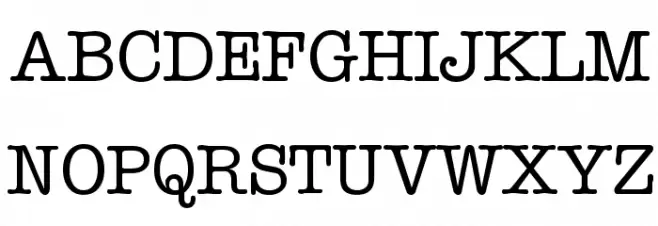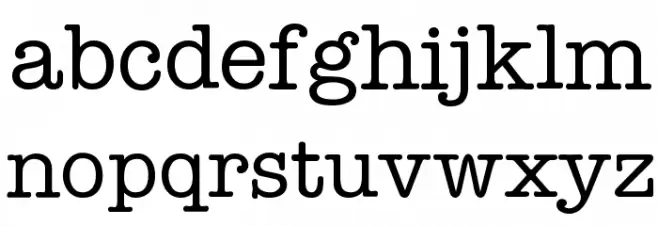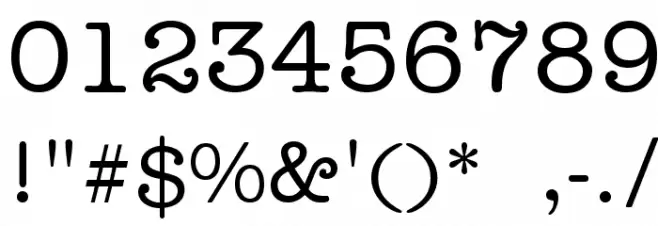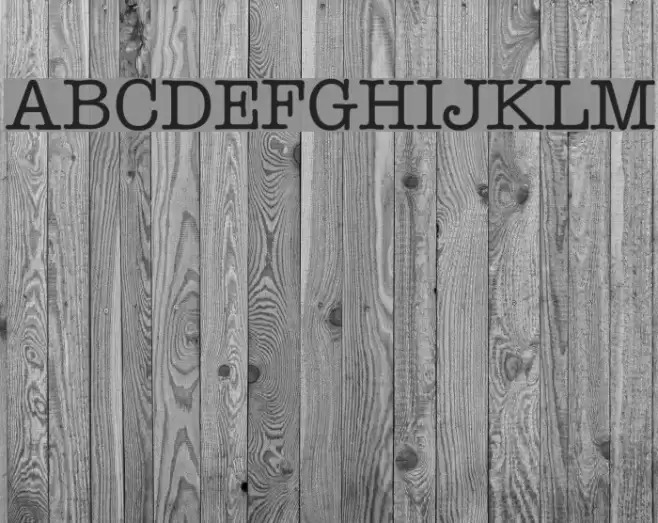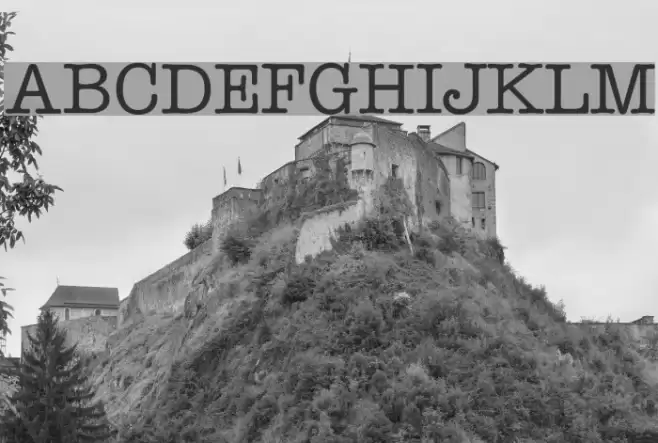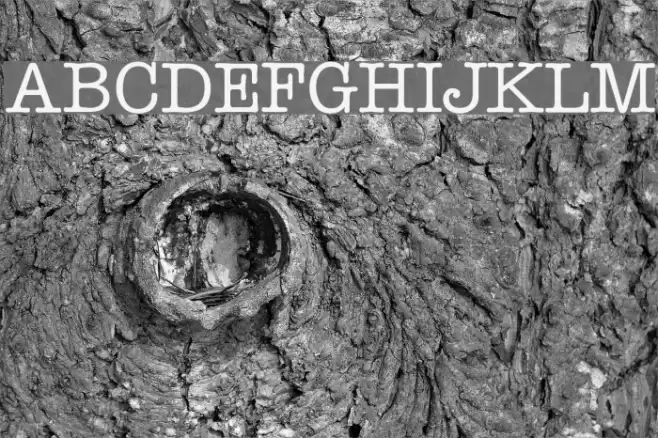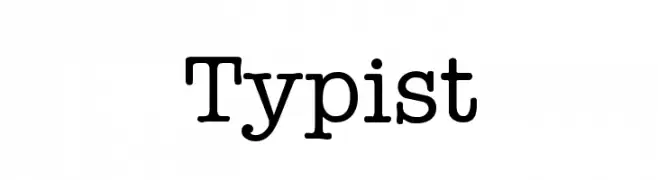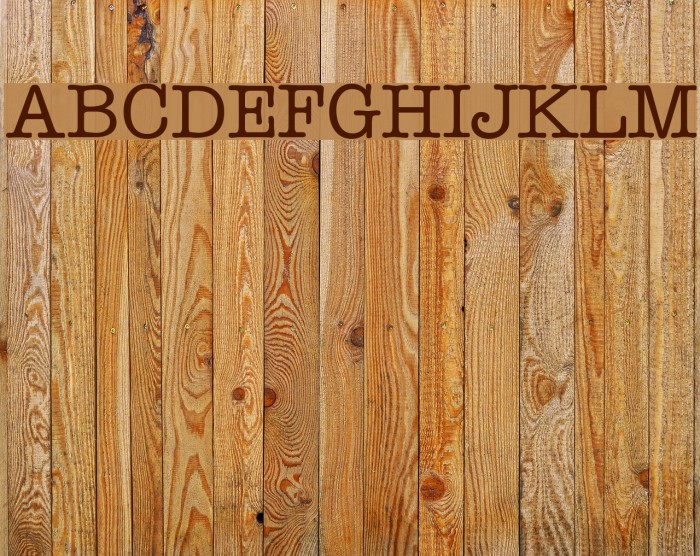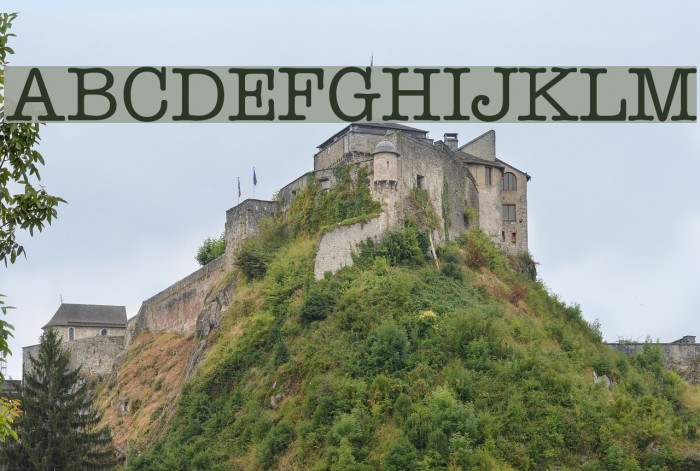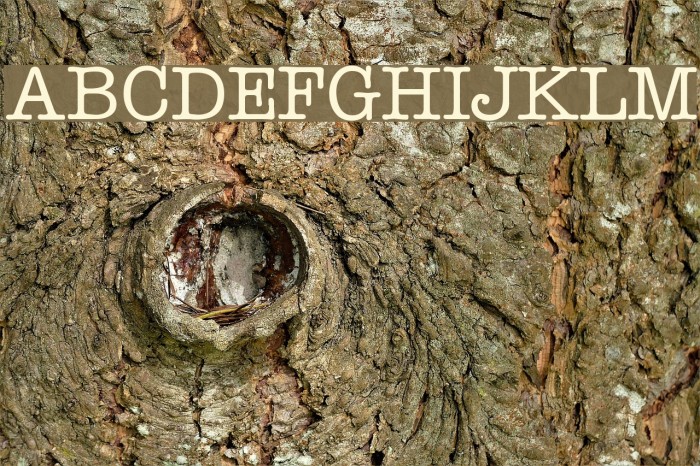
Typist
This font features a classic typewriter style with monospaced characters, giving it a vintage and mechanical appearance. The characters are evenly spaced, which is typical of typewriter fonts, ensuring uniformity and readability. The strokes are consistent in thickness, providing a clean and structured look. The serifs are prominent and slightly rounded, adding a touch of softness to the otherwise mechanical feel. This font is ideal for projects that require a retro or nostalgic touch, such as vintage-themed designs, typewriter simulations, or any creative work that seeks to evoke a sense of the past.
A classic typewriter-style font with monospaced characters and prominent serifs.
- Proposed Projects: Ideal for vintage-themed designs, typewriter simulations, and creative projects evoking nostalgia.
- Category: Monospaced
- Overall Style: Vintage